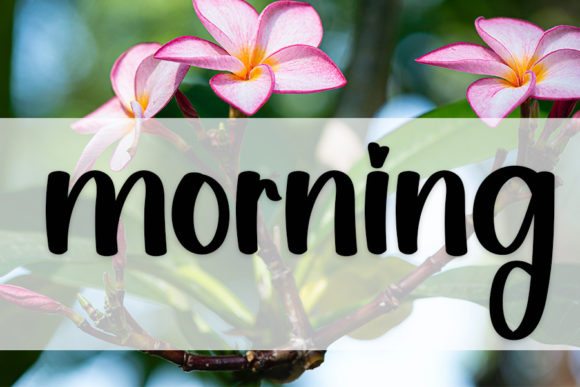
Pink Line Font
db-ku.com - Script & Handwritten -- Pink Line is a sweet and delicate handwritten font. Dainty and joyful, this font will be ideal for writing wedding invitations, cards, or any other design that may need a romantic, personalized touch!